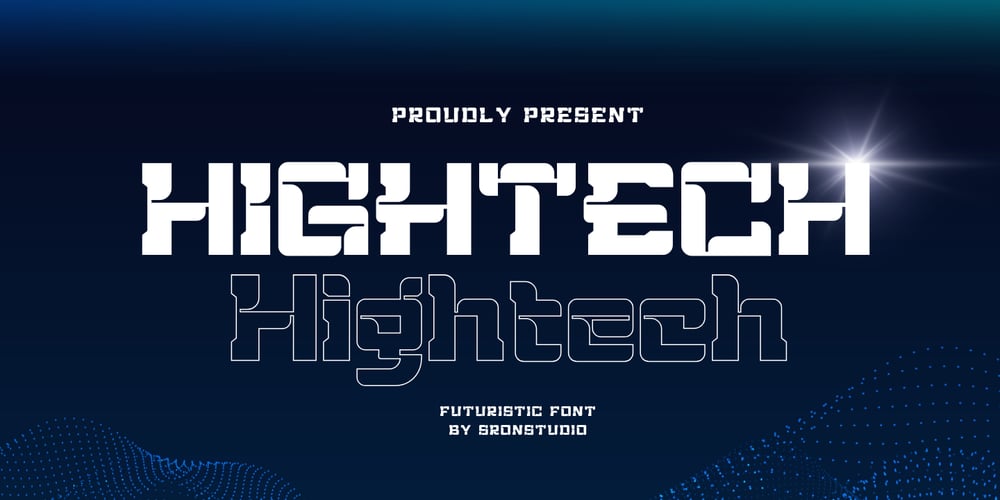
Hightech Font Family was designed by Muhamad Yusron Billah and published by Sronstudio. Hightech contains 1 styles and family package options. Hightech is a font that epitomizes the future of technology. With its sleek, streamlined letterforms and cutting-edge design, it radiates a sense of innovation and progress. Ideal for tech-related branding, interfaces, or any project that demands a futuristic aesthetic, “Hightech” adds a touch of high-tech sophistication to your designs.Included:- PUA Encoded- Multilingual support- Simple Installation- Work both on Mac and WindowsThank you very much 🙂